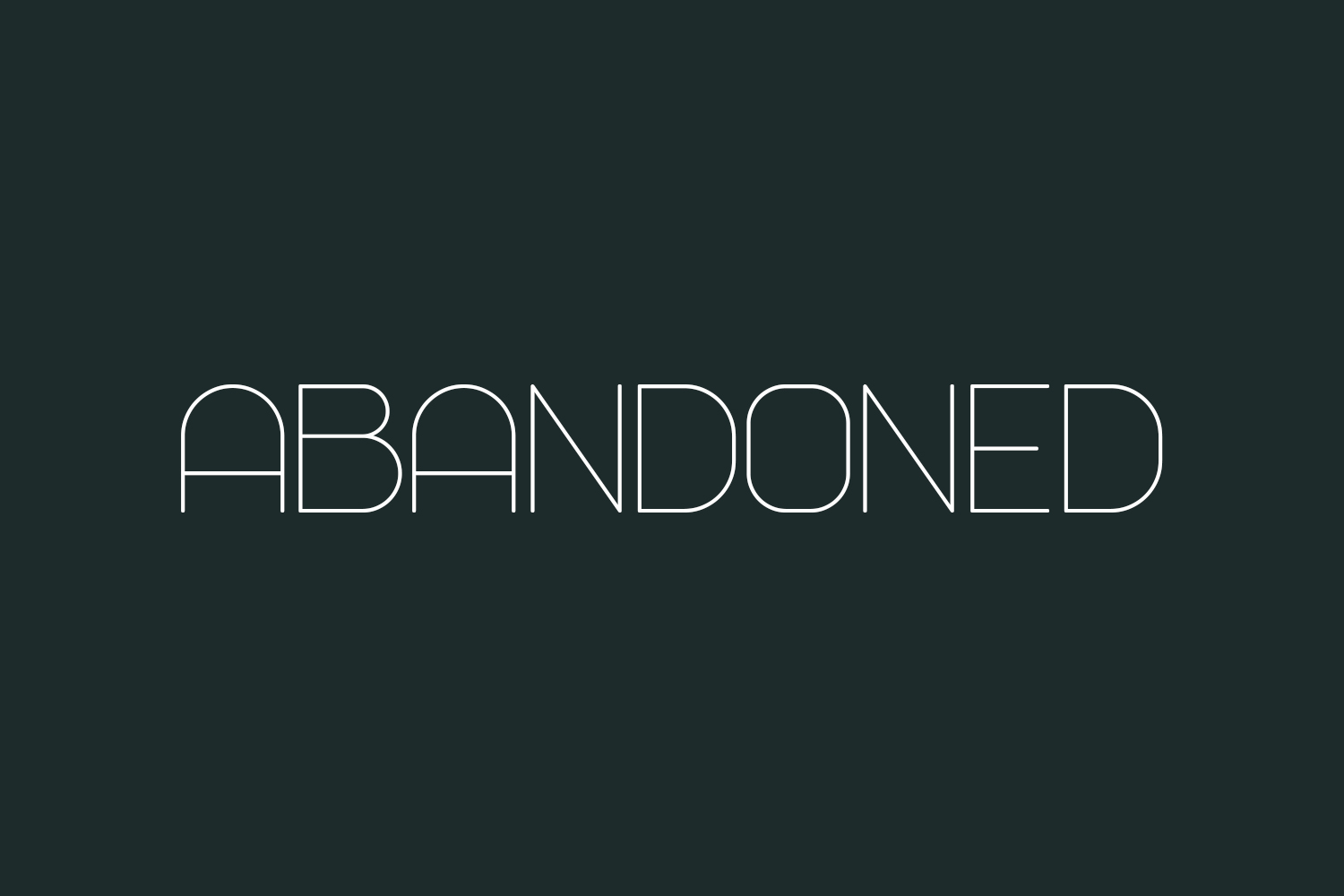
Abandoned Free Font Family is a clean and thin sans serif font. It is excellent for posters, flyers, banners, and more. Abandoned Free Font Family is free for personal use only. Please purchase the full version for commercial use.
Designed by Vladimir Nikolic